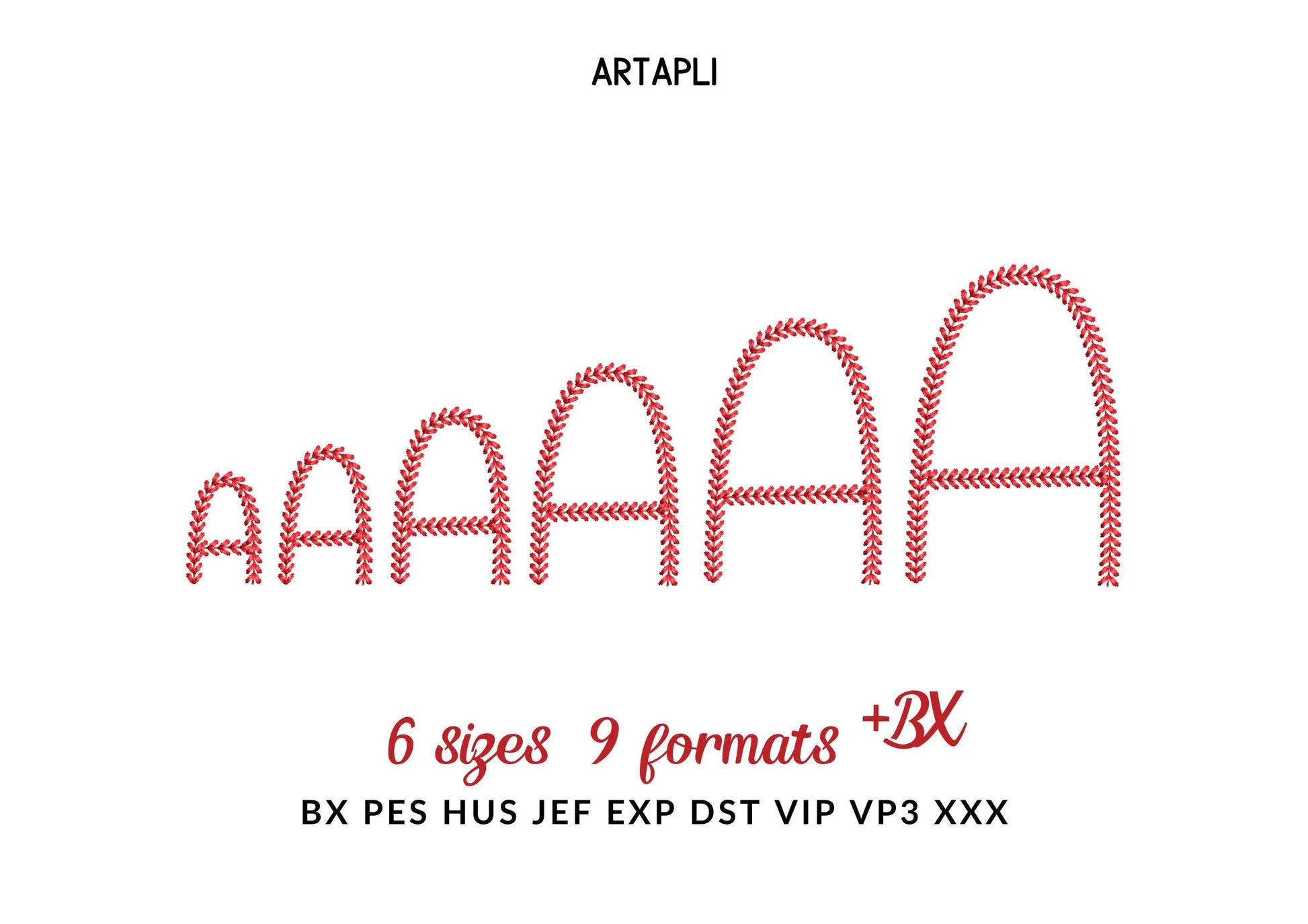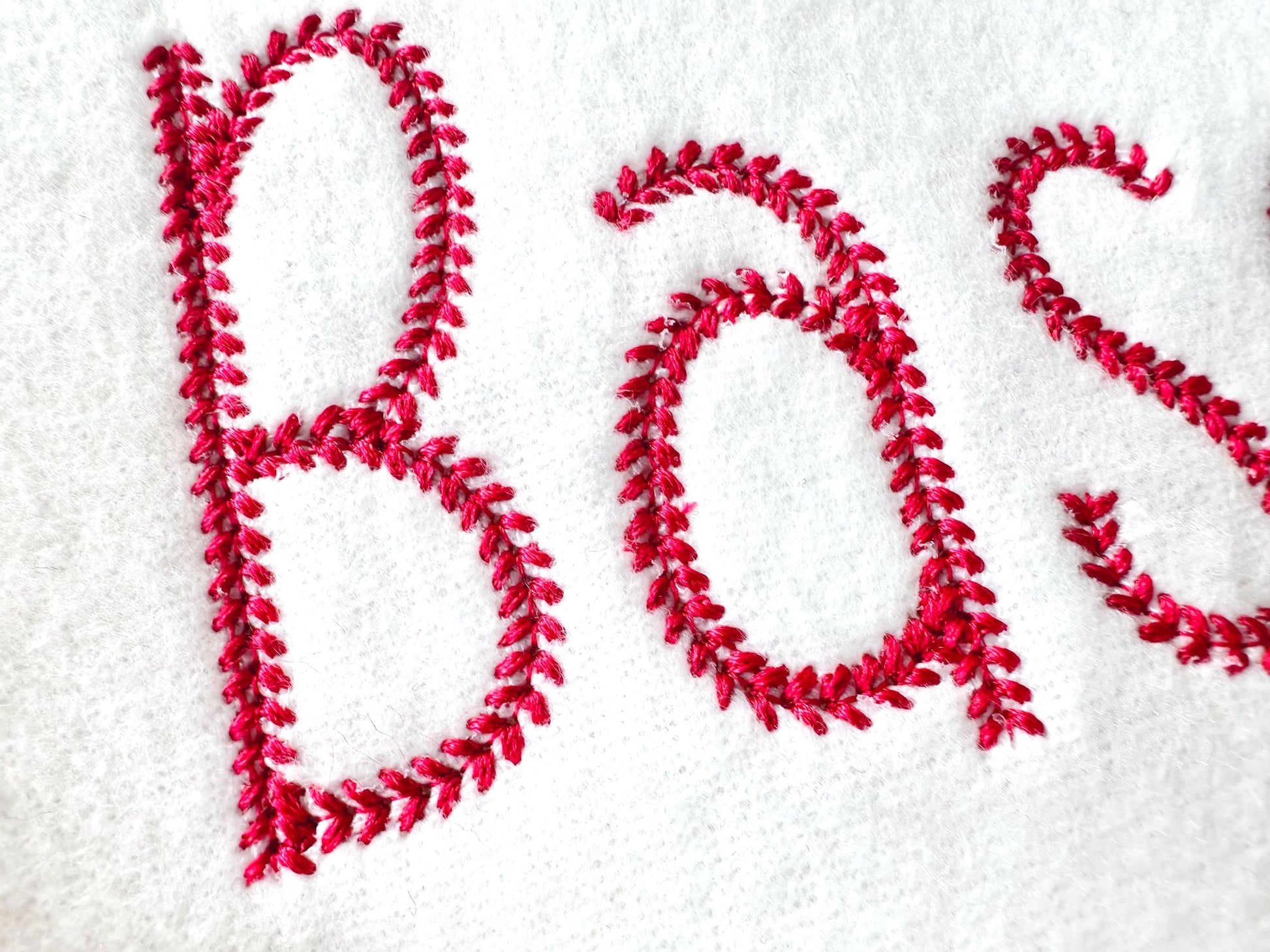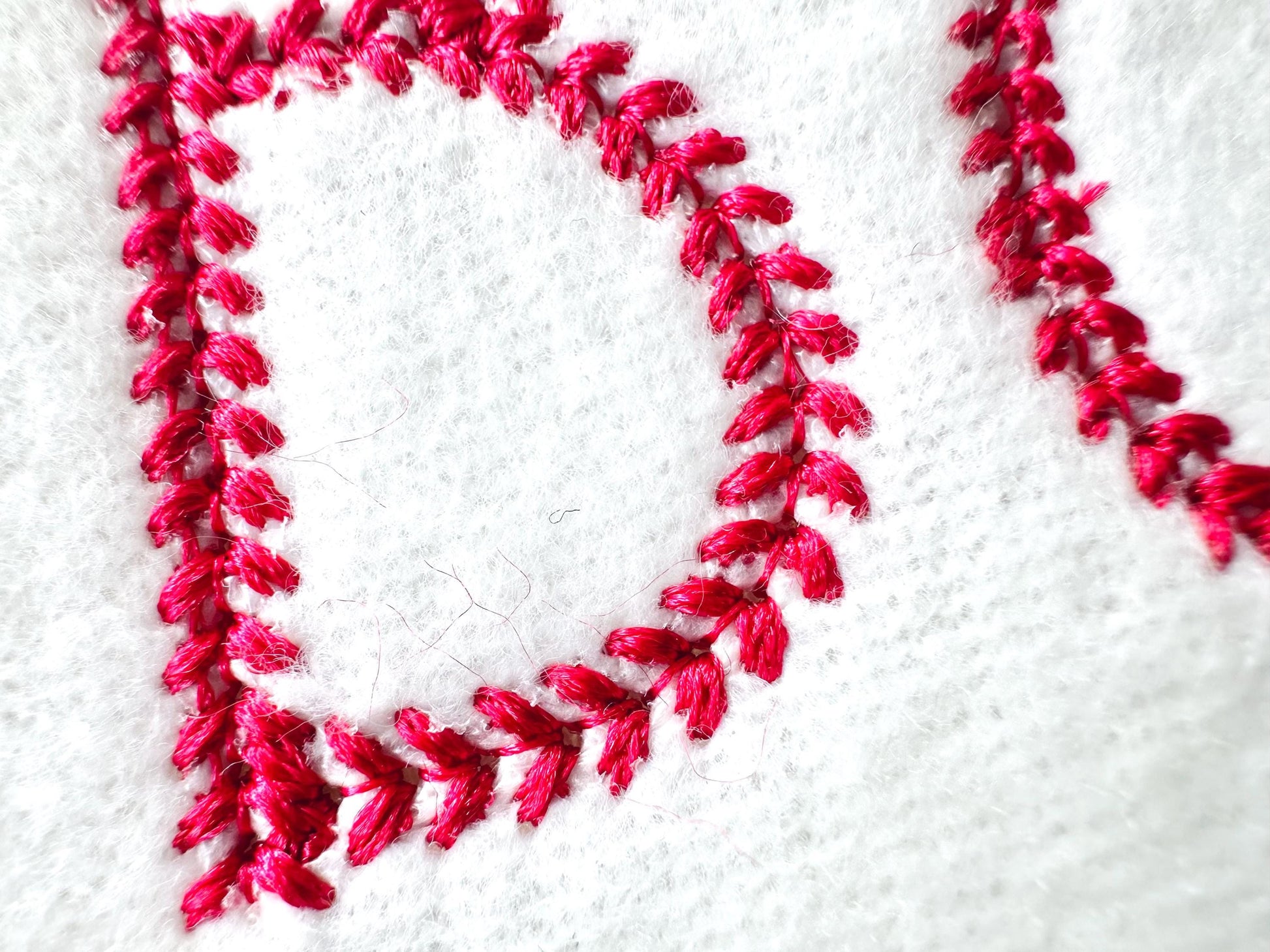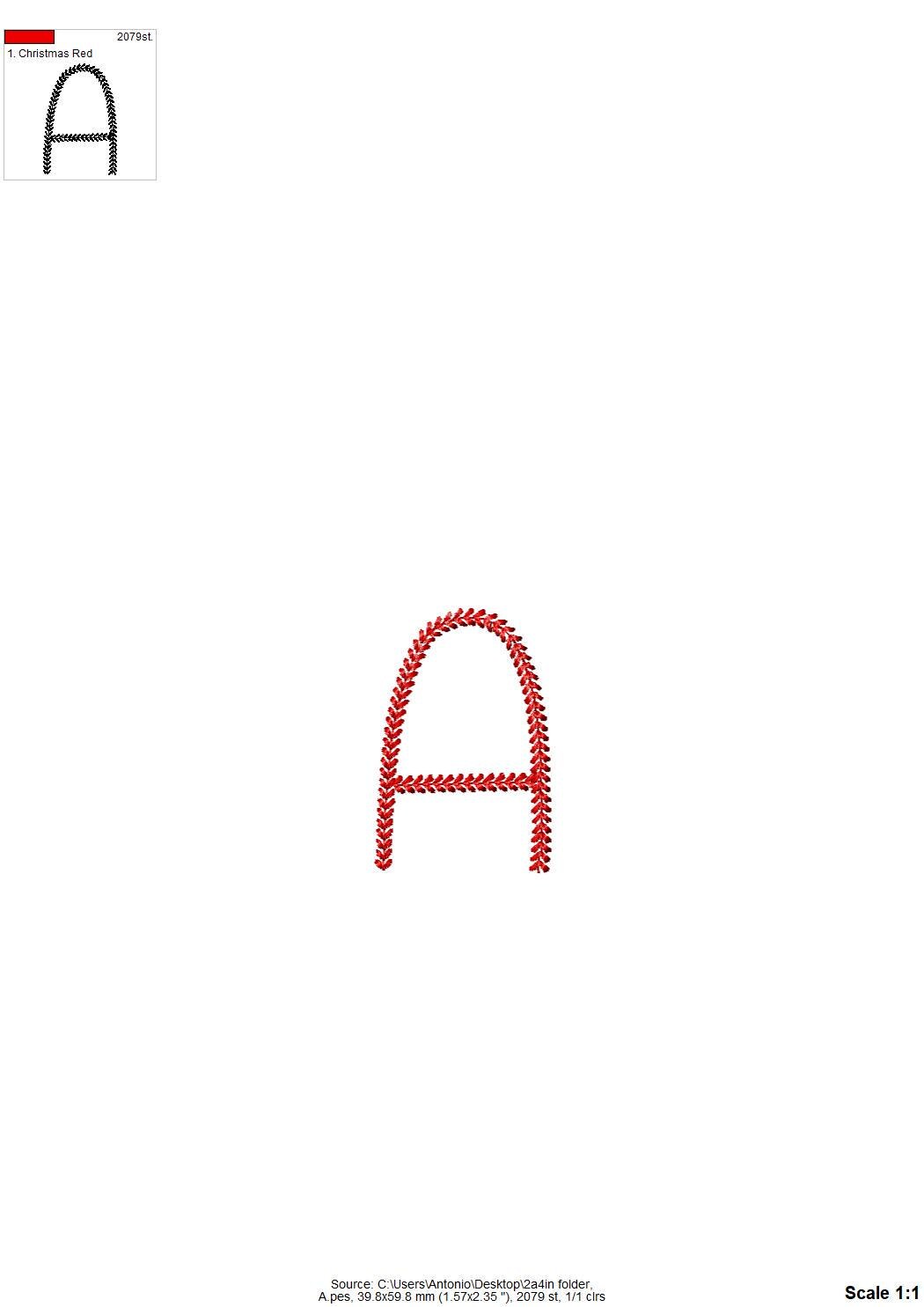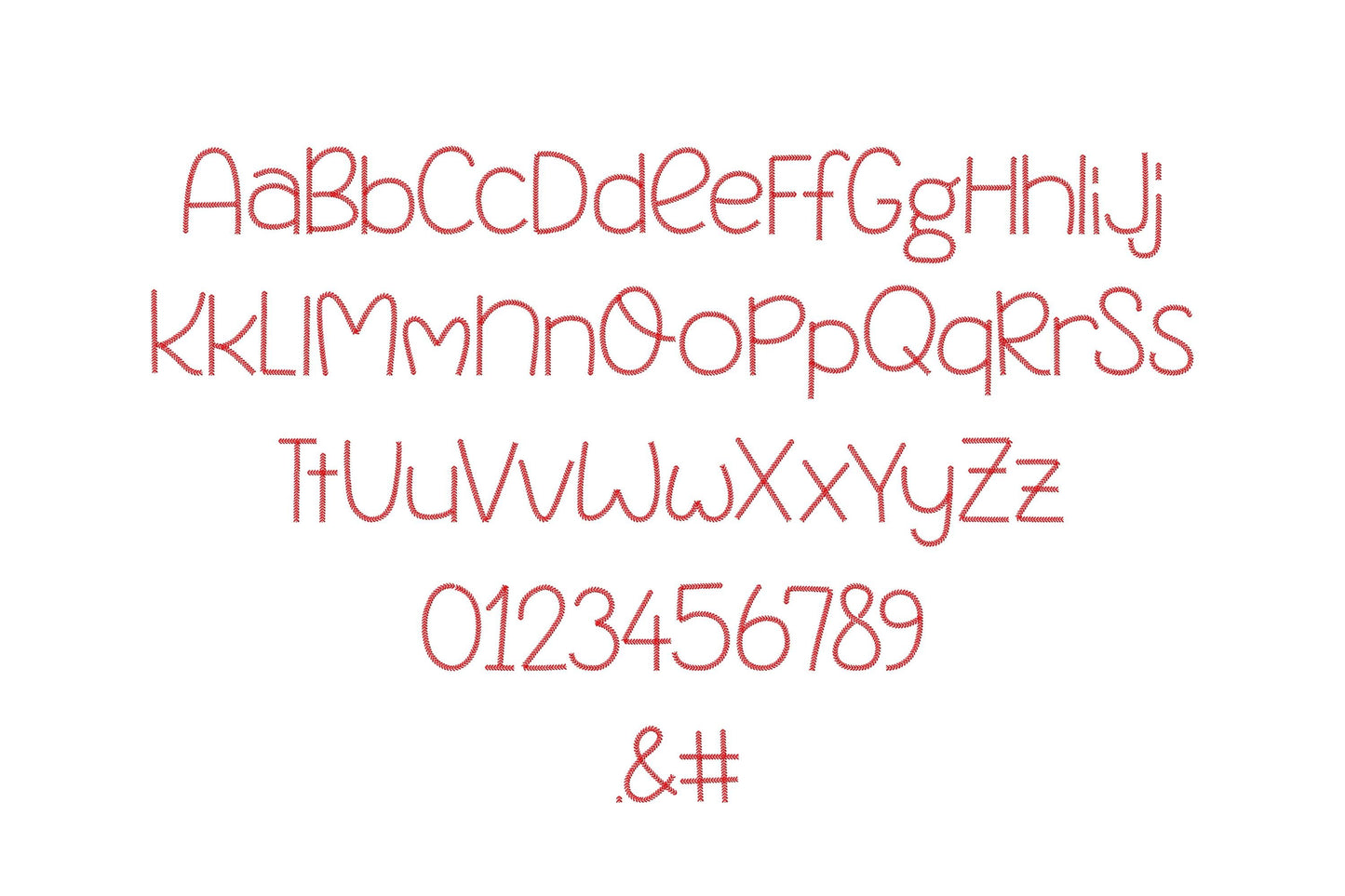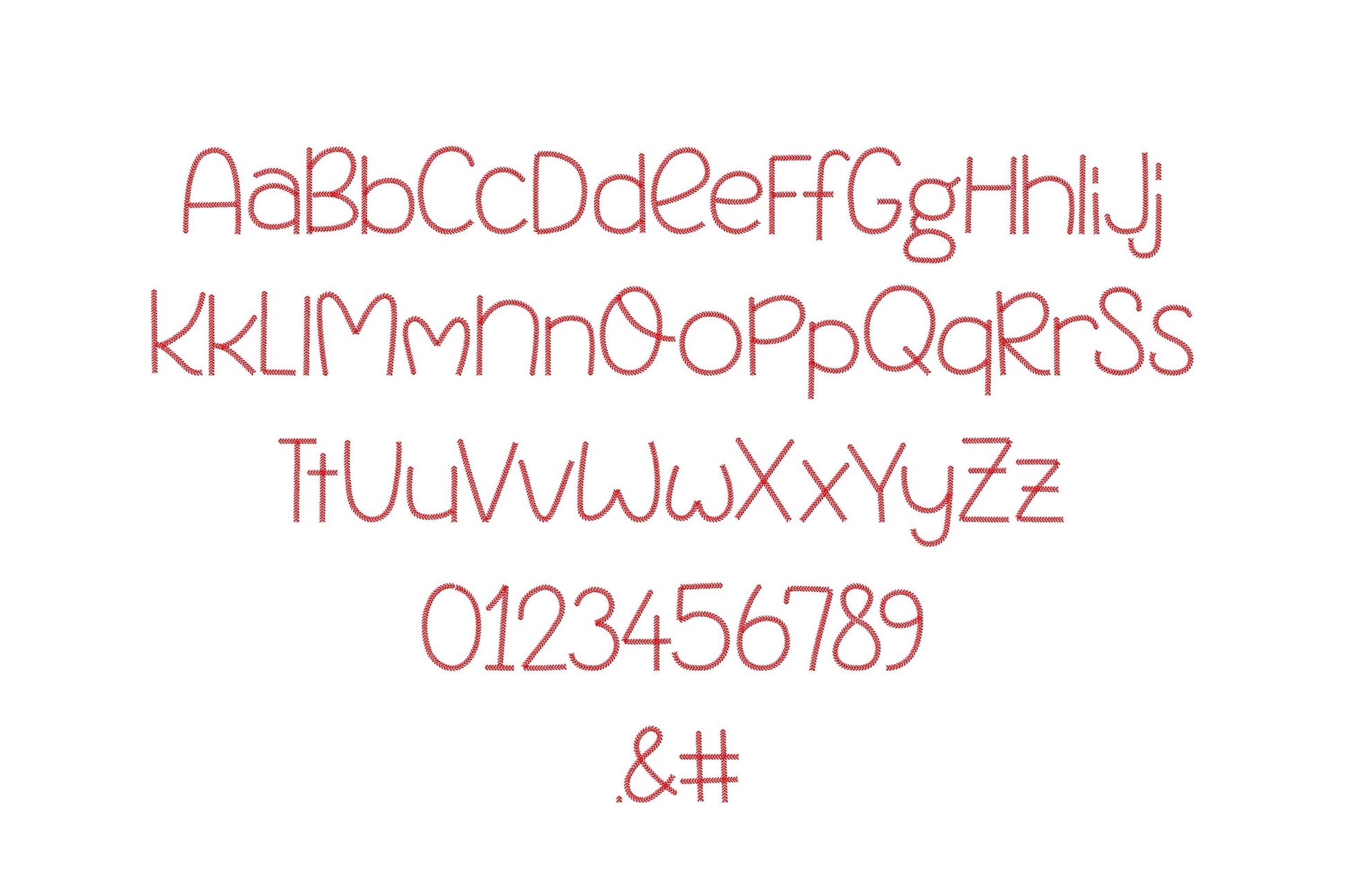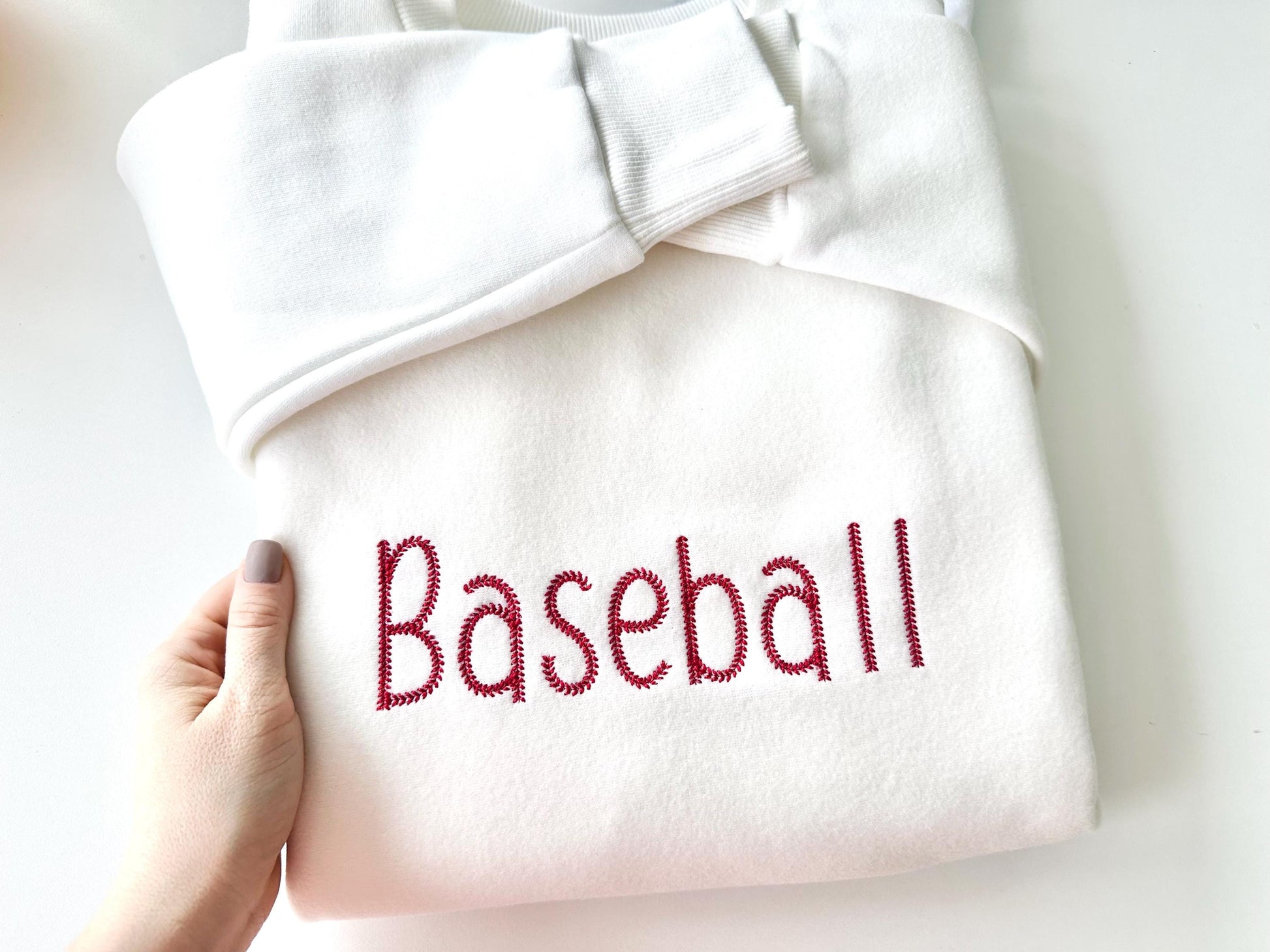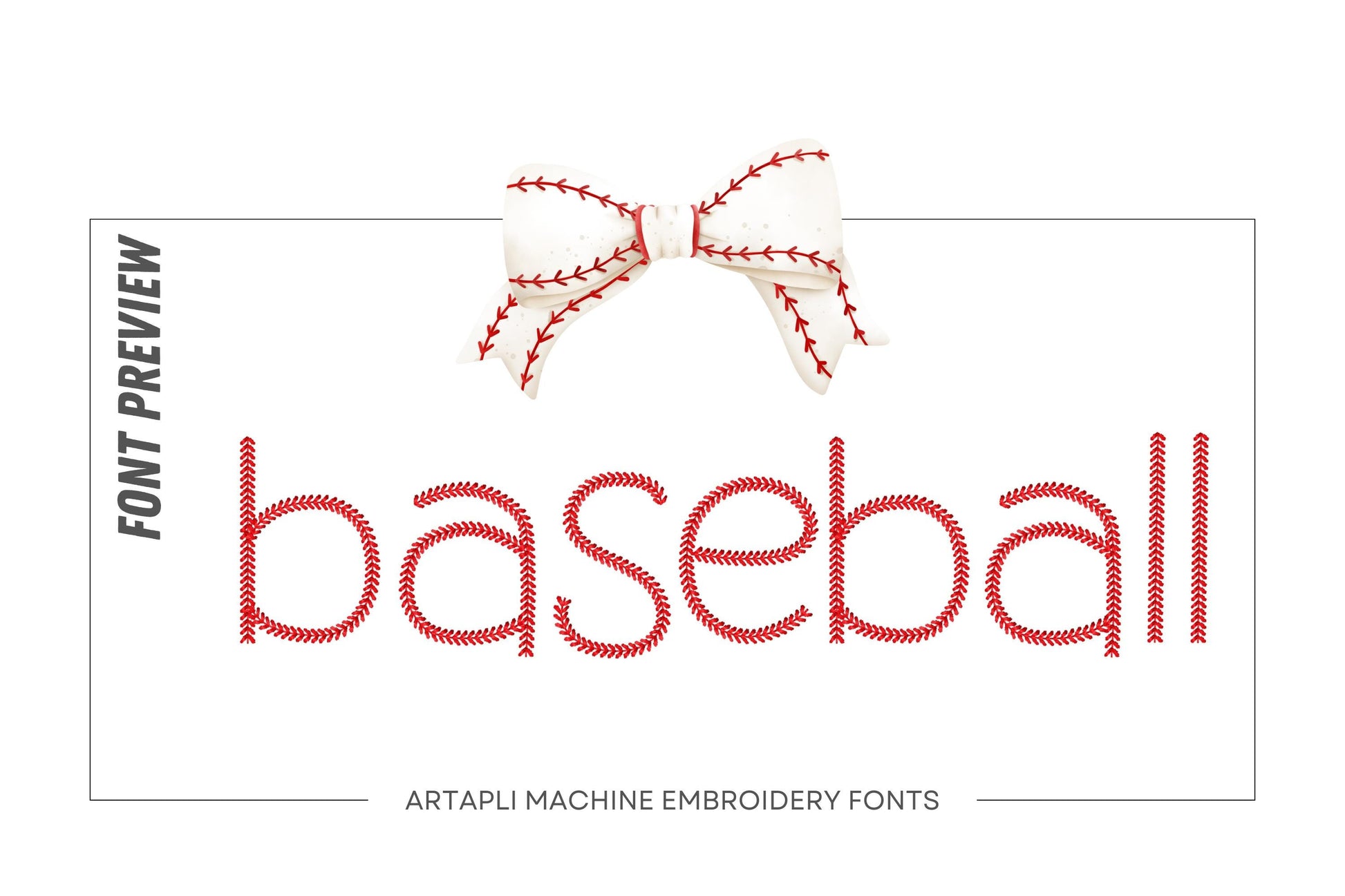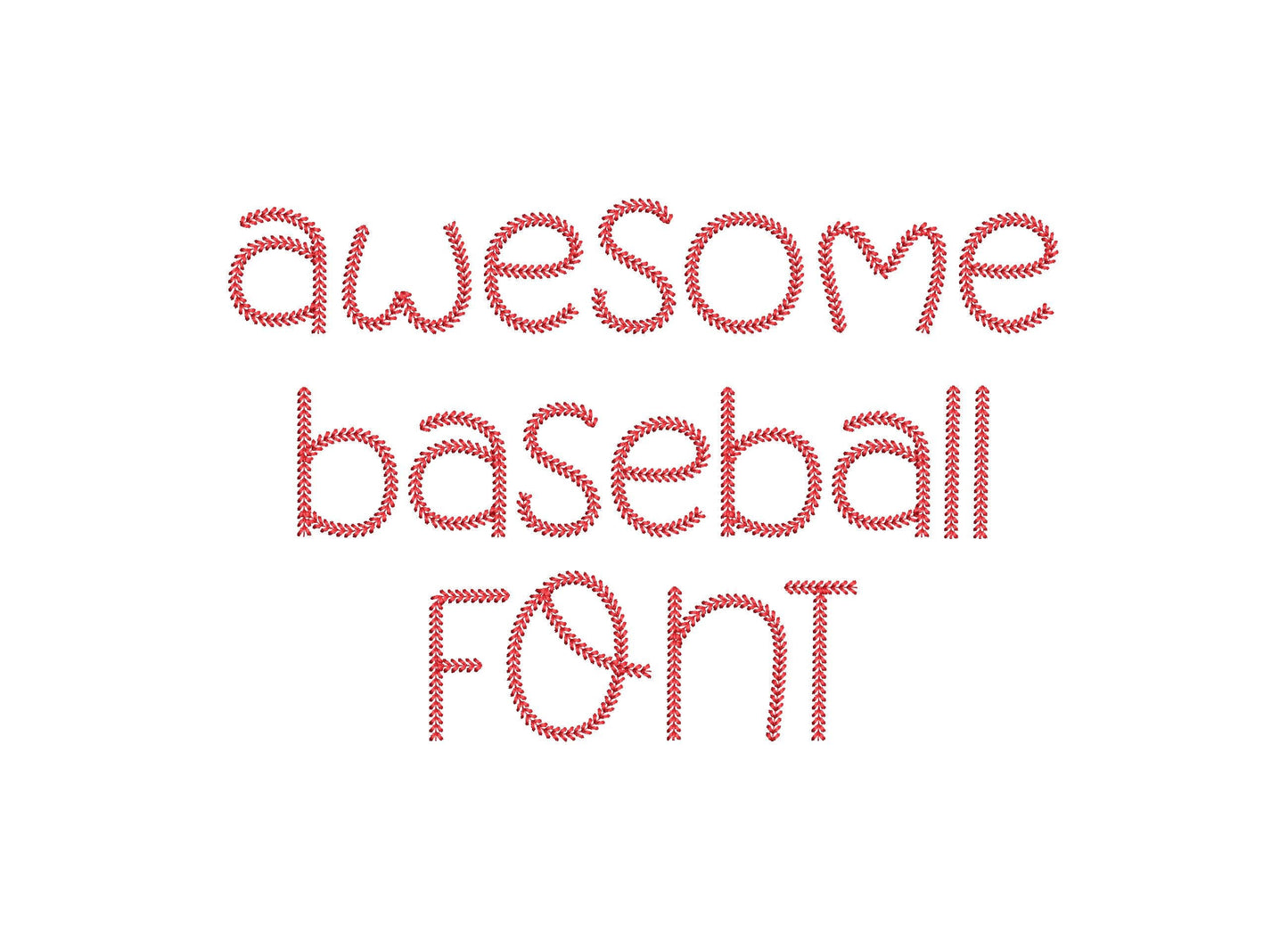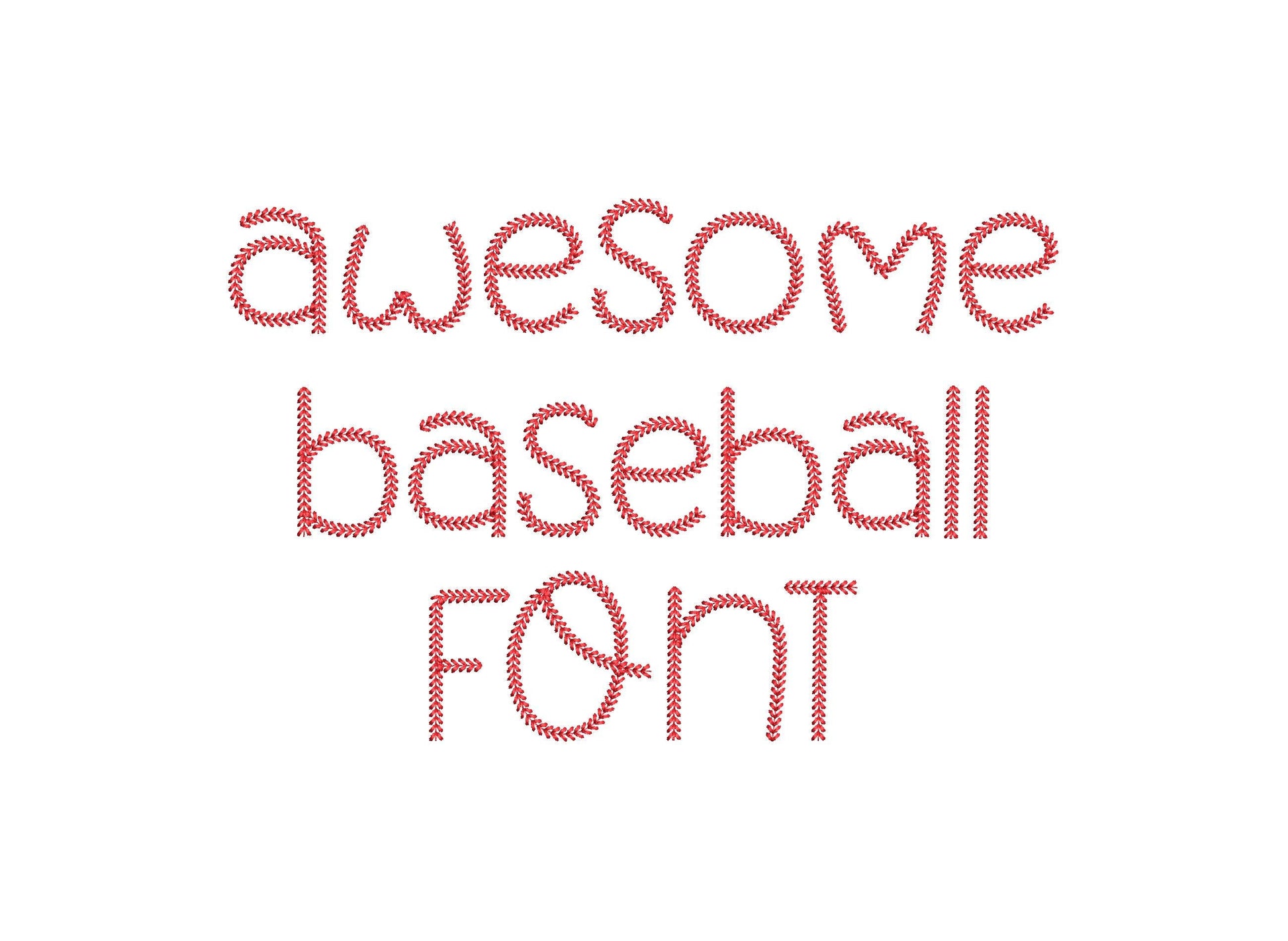
Baseball Stitch Softball Sports Font
Or click to open the linkA sporty font that imitates the red stitching on a baseball, for team names and numbers on baseball and softball shirts, caps and bags.
Uppercase and lowercase letters, numbers and a few signs in eight sizes: 1, 1.3, 1.6, 2, 2.4, 2.8, 3 and 3.5 inches.
- Baseball stitch font
- Uppercase, lowercase, numbers 0-9